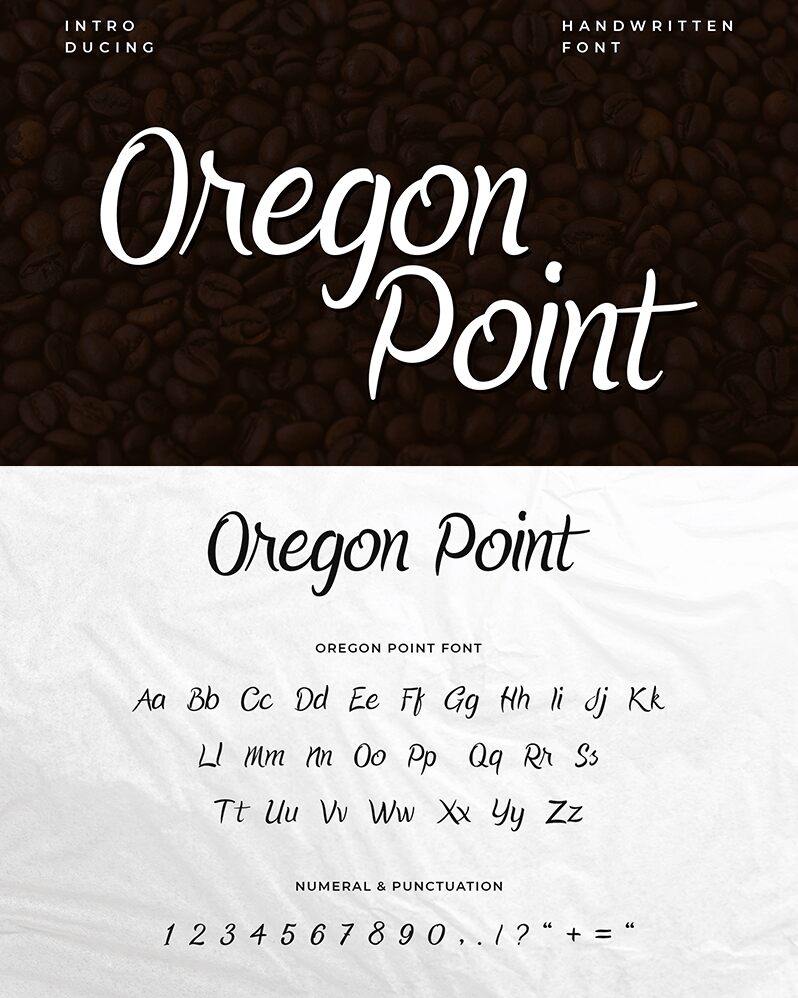
Oregon Point
Oregon Point Handwritten is a font that carries a handwriting style inspired by urban script fonts with sharp and beautiful letters that make this font look modern, trendy, and elegant. This font comes with open types such as alternate styles, balanced sets of styles & ligature. suitable for logos, posters, badges, book covers, t-shirt designs, packaging, and other creative design needs.